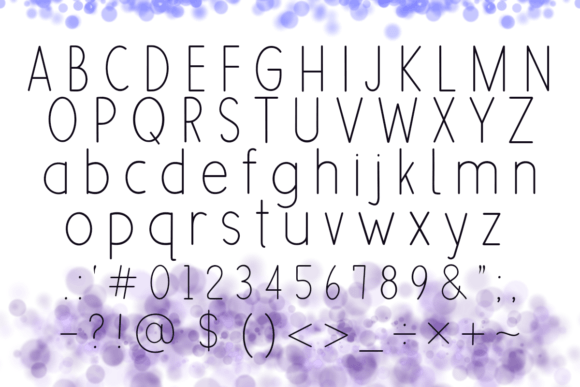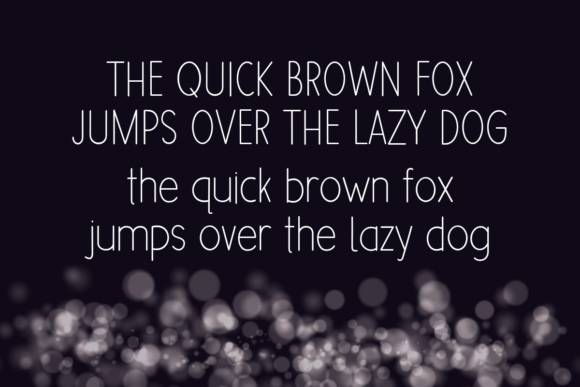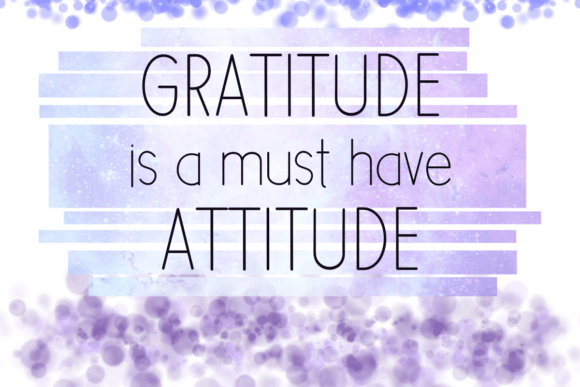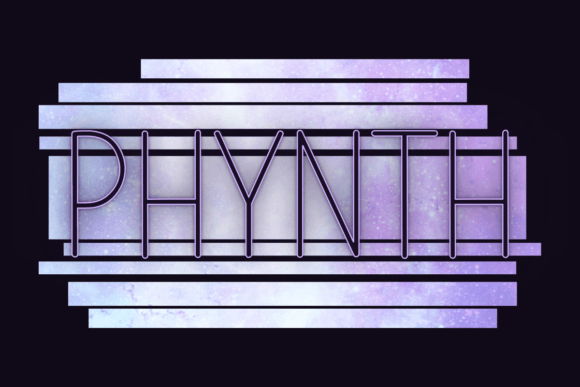
Introduction to Phynth Font
Phynth is a clean and minimalist sans-serif font designed to bring clarity and simplicity to your written communication.
Its sharp, geometric lines and uniform letterforms ensure legibility, while its understated style conveys a modern and sophisticated aesthetic Perfect for branding, editorial, and digital projects.